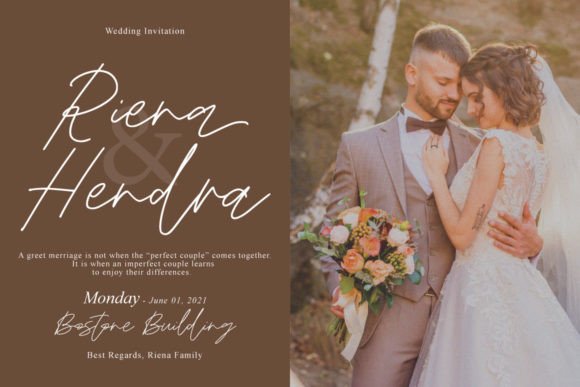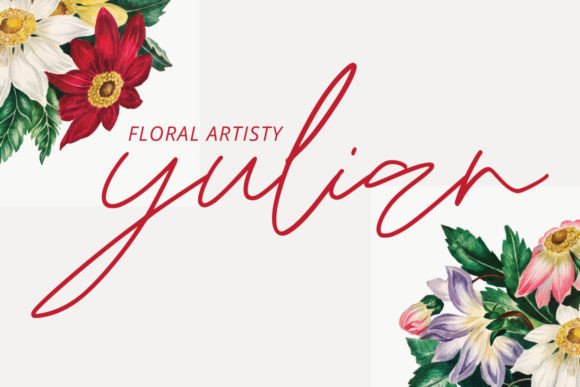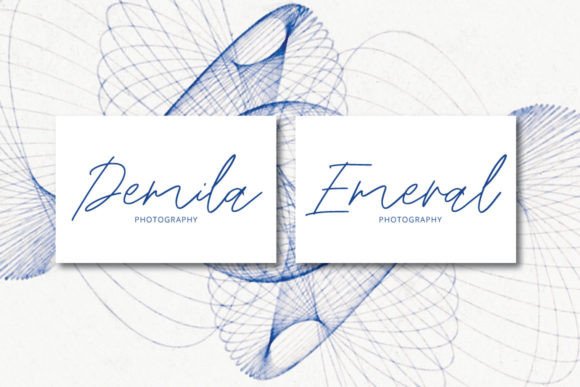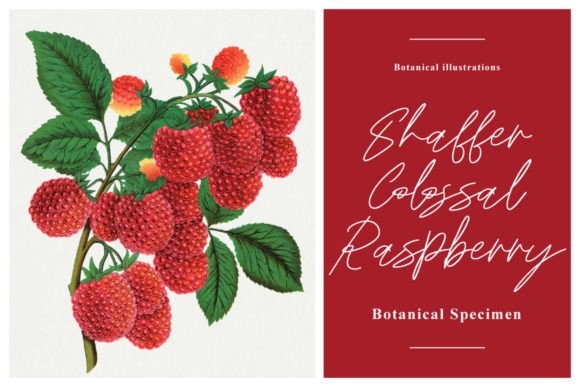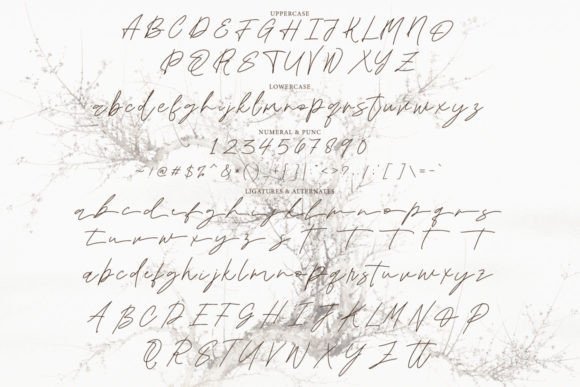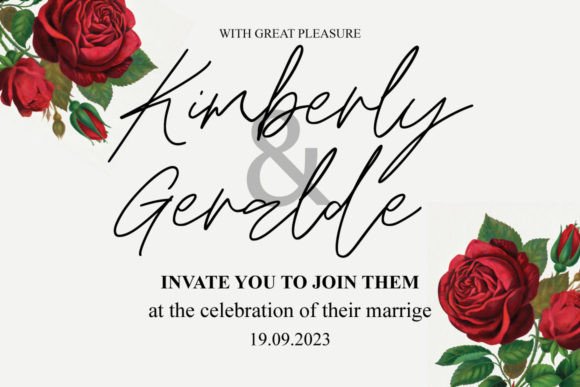
Introduction to Hendrie Signature Font
Hendrie Signature is a graceful and elegant signature script font that combines classic and modern design elements.
Its flowing letterforms and decorative swashes create a timeless look that is perfect for wedding invitations, branding, and other high-end design projects .
Key Features of Hendrie Signature Font
Why Choose Hendrie Signature Font?